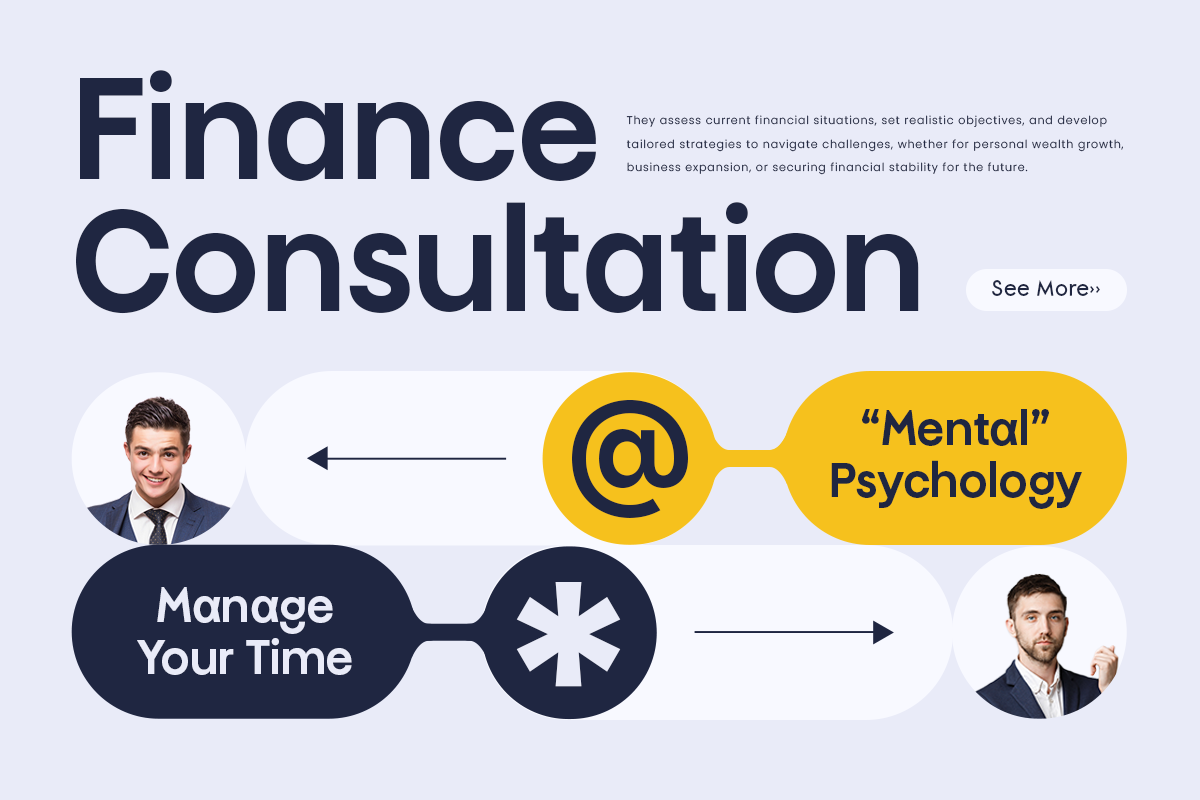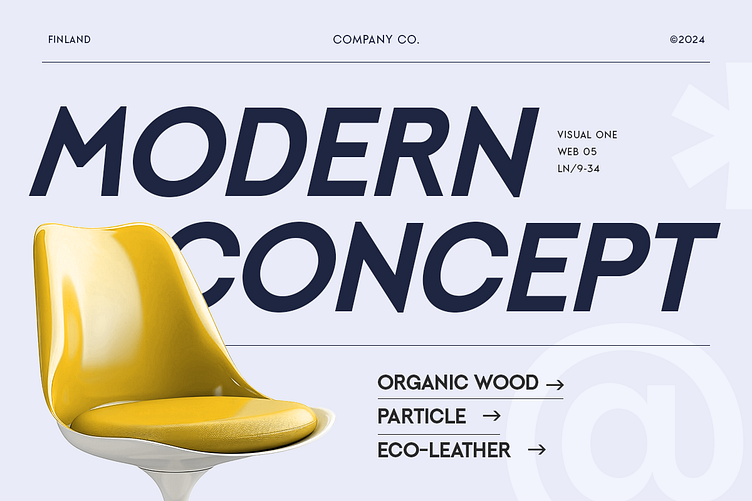
Nega Font - Modern Sharp Typeface for Bold Premium Logos ✨
Meet Nega, a modern typeface crafted for sleek branding and bold identity. With clean forms, sharp edges, and confident proportions, Nega – Modern Logo Font was built to stand strong in logos, headlines, and visual systems that demand attention.
📐 The Story Behind Nega
We designed Nega with one clear mission: to give brands a font that looks modern, sharp, and powerful—without unnecessary complexity. Inspired by minimalist architecture and high-end branding, Nega is perfect for corporate logos, design studios, fashion labels, fintech brands, and forward-thinking startups.
Whether you're creating a monogram, logotype, or identity system, Nega provides clarity, strength, and modern elegance in every letter.
✨ Why Nega?
✔ Modern and versatile for premium branding
✔ Strong shapes ideal for standout logos
✔ Clean structure for both print and digital design